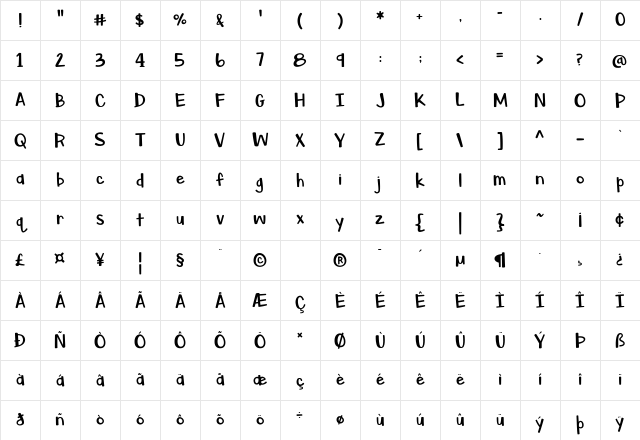
Complete Asparagus Sprouts Regular glyph index. Displaying only characters natively supported by Asparagus Sprouts Regular font.
Asparagus Sprouts is a composed and adaptable typeface that performs quietly and consistently across a wide range of design contexts.
Who designed the Asparagus Sprouts Regular font?
This font was published by Brittney Murphy. Check the technical specs section for copyright and designer details.